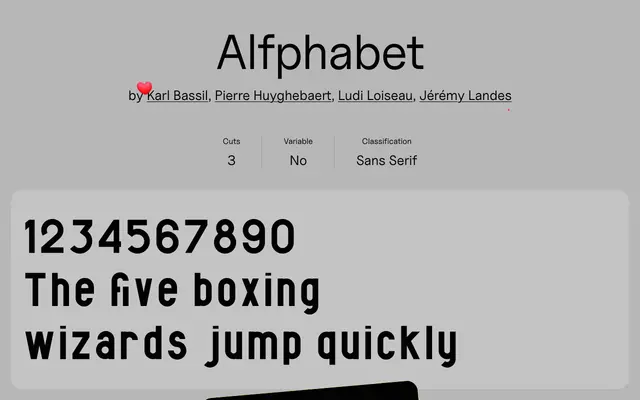
Alfphabet
A three-cut sans by four designers released under the SIL Open Font License for free commercial and personal use.
Designed collaboratively by Karl Bassil, Pierre Huyghebaert, Ludi Loiseau and Jérémy Landes, Alfphabet is a sans serif available in three cuts. It carries no variable axis and is distributed freely under SIL OFL 1.1, permitting commercial use, modification and redistribution. The multi-author origin gives it a distinct, experimental quality uncommon in standard grotesque releases.
Listed under Sans Serif by the foundry; the name and collaborative origins suggest a constructed, experimental grotesque rather than a polished commercial sans.